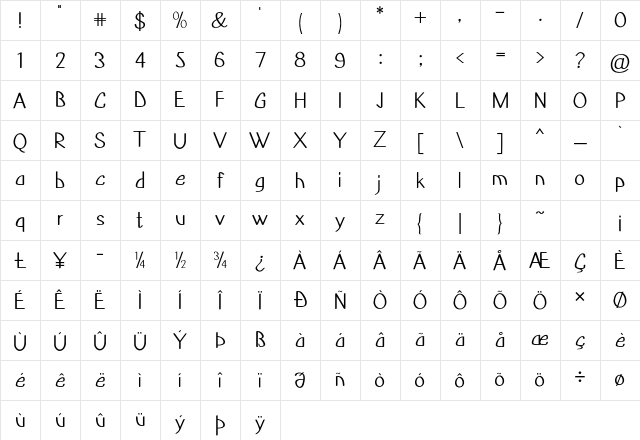
Poric Regular
Poric Family
Poric Regular
Design Context for Poric
Poric is a composed and adaptable typeface that performs quietly and consistently across a wide range of design contexts.